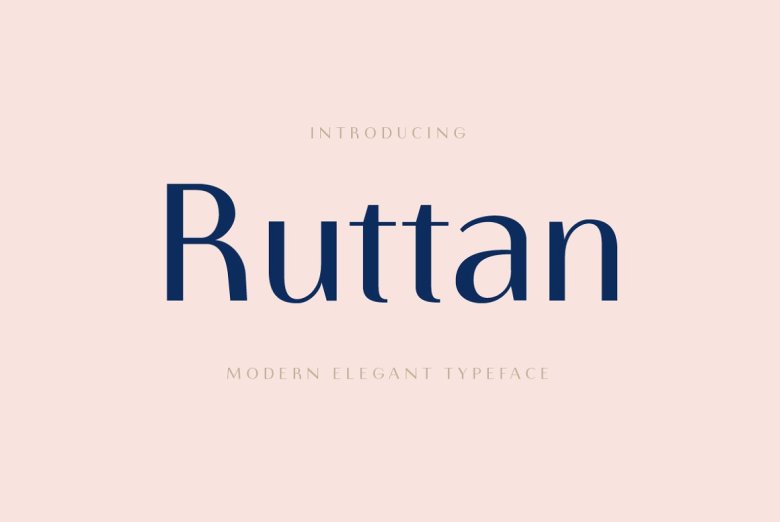
Ruttan Font
Ruttan Elegant Font is a modern sans serif typeface with tall, thin shapes So: this typeface is ideal for use in high fashion branding, both flashy online videos and short clips fed through smartphones on social media sites etc. It is truly at the cutting edge of design! It combines ease of reading with a sophistication all its own.
Ruttan Sans Serif Font